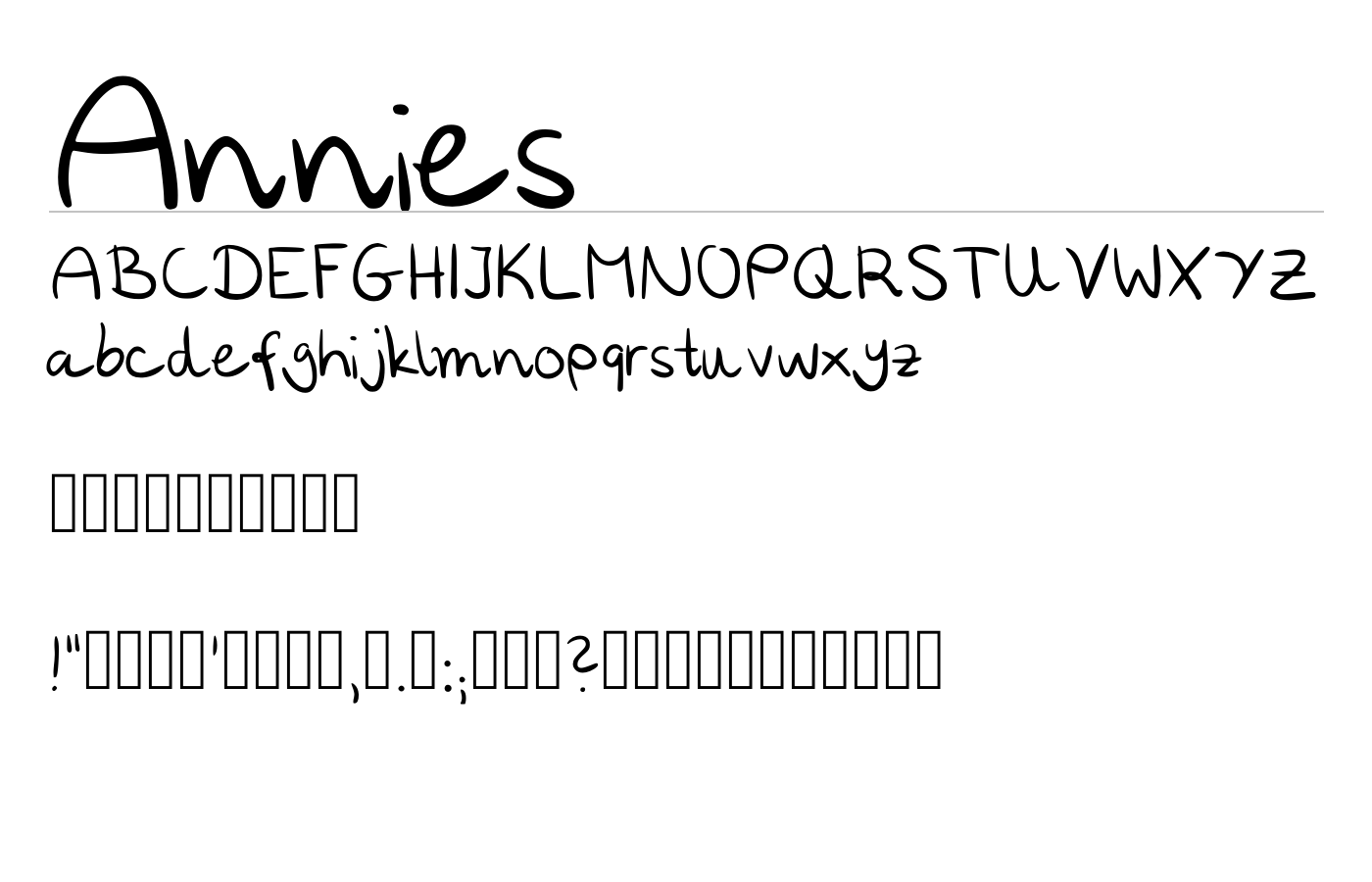
Annies Font is a playful and casual handwritten sans serif typeface with a light weight and a slightly narrow width. Its simple, rounded letterforms with consistent stroke thickness give it a friendly and approachable feel, making it ideal for informal and creative projects. This font works well for kids’ materials, invitations, personal branding, and any design that benefits from a warm, human touch.
Annies Font
About Annies Font